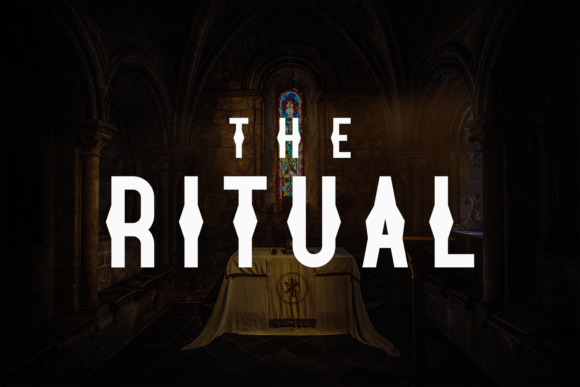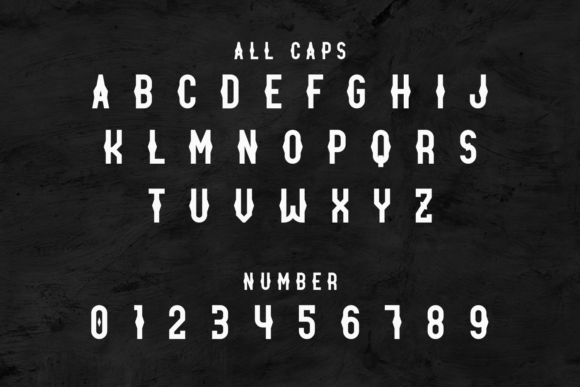
Introducing Abelon Font: Elevate Your Designs with Style
In the world of typography, fonts play a crucial role in conveying messages, expressing emotions, and creating visual identities. For designers, crafters, and creatives, finding the right font can make all the difference in bringing their ideas to life. If you’re on the hunt for a cool and stylish display font that can elevate your designs, look no further than Abelon Font.
What is Abelon Font?
Abelon is a modern, stylish, and versatile display font designed to make a statement. Its unique blend of elegance and playfulness makes it an excellent addition to any font library. Whether you’re working on a branding project, creating social media graphics, or designing a website, Abelon Font is the perfect choice to add a touch of sophistication and flair.
Key Features of Abelon Font
- Cool and Stylish Design: Abelon Font boasts a sleek and contemporary design that’s sure to turn heads. Its stylish appearance makes it perfect for creating eye-catching headlines, titles, and captions.
- Versatile and Adaptable: Abelon Font is incredibly versatile and can be used across various design projects, from logos and branding materials to social media graphics, posters, and more.
- Easy to Read: Despite its stylish appearance, Abelon Font remains highly legible, making it an excellent choice for body text and captions.
- High-Quality Vector Graphics: Abelon Font is designed as a high-quality vector graphic, ensuring that it remains crisp and clear even at large sizes.
Benefits of Using Abelon Font
So, why should you choose Abelon Font for your next design project? Here are just a few benefits of incorporating this amazing font into your workflow:
- Elevate Your Designs: Abelon Font has the power to instantly elevate your designs, adding a touch of style and sophistication that sets them apart from the rest.
- Save Time: With Abelon Font, you can create stunning designs in no time. Its versatility and adaptability mean you can use it across multiple projects, saving you time and effort.
- Stand Out from the Crowd: In a world where design trends are constantly evolving, Abelon Font helps you stay ahead of the curve. Its unique and stylish design ensures that your creations stand out from the crowd.
Who Can Benefit from Abelon Font?
Abelon Font is an excellent addition to any designer’s toolkit, regardless of their specific niche or area of expertise. Here are just a few examples of professionals who can benefit from this amazing font:
- Graphic Designers: Abelon Font is perfect for graphic designers looking to create stunning visual identities, logos, and branding materials.
- Digital Artists: Digital artists and illustrators can use Abelon Font to add a touch of style and personality to their artwork.
- Crafters and Makers: Crafters and makers can use Abelon Font to create beautiful, eye-catching labels, packaging, and promotional materials.
- Web Designers: Web designers can use Abelon Font to create stunning website headers, titles, and captions that capture users’ attention.
In conclusion, Abelon Font is an incredible asset for any designer, crafter, or creative looking to elevate their designs with style. Its cool and stylish design, versatility, and adaptability make it the perfect choice for a wide range of design projects. Whether you’re a seasoned pro or just starting out, Abelon Font is sure to become a staple in your font library.